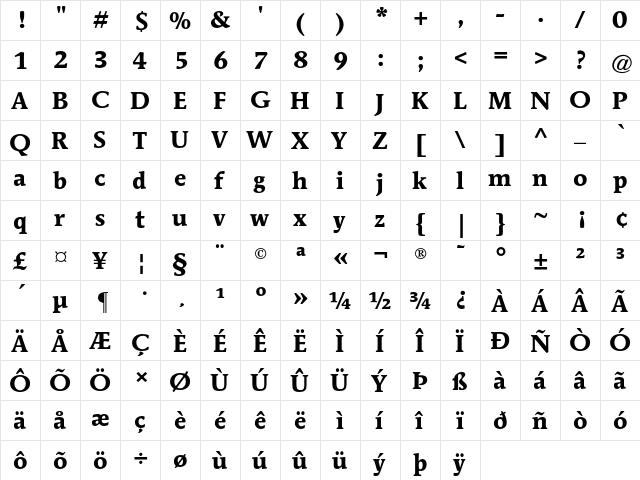
Mendoza Roman AT Bold Regular
Design Context for Mendoza Roman AT Bold Typeface
Mendoza Roman AT Bold offers clean, dependable letterforms without strong stylistic allegiance, making it a practical choice for designers who need flexibility. Its bold stroke weight gives it real presence on the page.